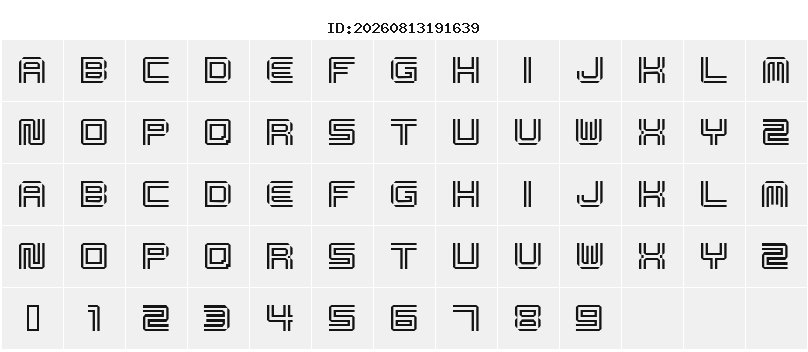
spd04 Preview
About spd04.ttf
spd04.ttf is a modern, elegant sans-serif font designed for ultimate readability and visual harmony. Perfect for branding, headlines, web design, and print materials.